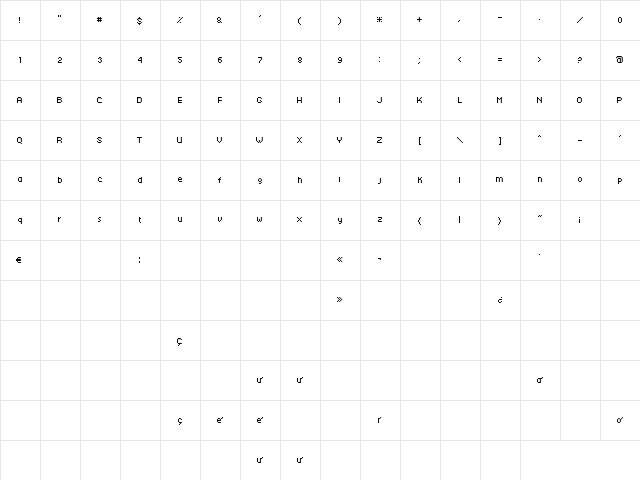
techkr Regular Font Preview
techkr Regular
Design Context for techkr Typeface
techkr channels digital-age aesthetics through its sharp, structured letterforms — ideal for brands that want to signal innovation.
Pro Tip: Try techkr with generous letter-spacing in UI labels and navigation — the geometric forms benefit from room to breathe.